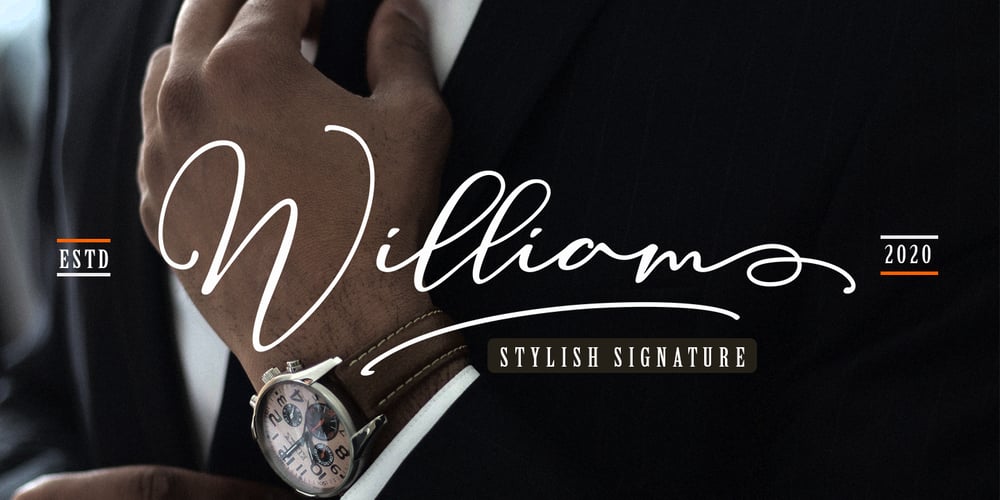
William Font Family was designed by Muhammad Nasir and published by Aqeela Studio. William contains 1 styles and family package options. Williem is a beautiful signature font. It features a very classic style, while still maintaining a welcoming feel. Williem is the perfect font for creating original and extraordinary designs.Can be used for various purposes. Such as logos, wedding invitations, headings, t-shirts, letterheads, signage, labels, news, posters, badges etc.To activate the OpenType Stylistic alternative, you need a program that supports OpenType features such as Adobe Illustrator CS, Adobe Indesign & CorelDraw X6-X7, Microsoft Word 2010 or a later version.How to access all alternative characters using Adobe Illustrator:https://www.youtube.com/watch?v=XzwjMkbB-wQOssellany Script is coded with PUA Unicode, which allows full access to all additional characters without having to design special software. Mac users Mac users, and Windows users can use Character Map to view and copy any additional characters for pasting into your favorite editor / application.Thank you and happy designing 🙂 Enjoy!